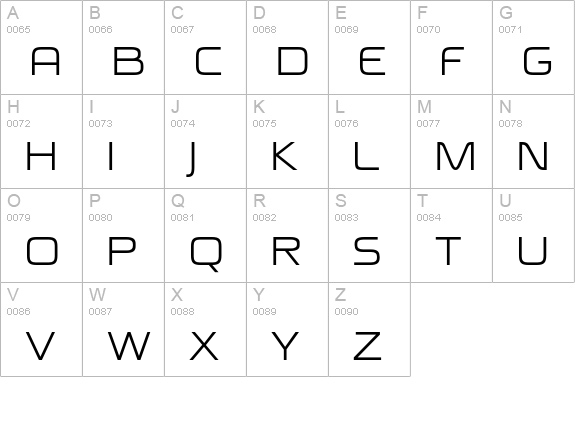
Introducing Megatrans font, a modern and stylish typeface that is perfect for a wide range of design projects. This versatile font features clean lines and sharp edges, making it ideal for both headers and body text. With its sleek and professional appearance, Megatrans font is sure to make your designs stand out.